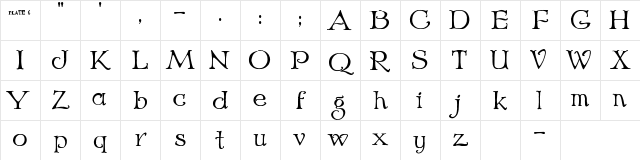
Hunt Bros 101 Plate 6 Antique Regular
Copyright: Hunt Bros 101 Alphabets. W. Ben Hunt and Ed. C. Hunt, Rather ornate with a touch of Gothic curves. 1954. 2012.
Design Context for Hunt Bros 101 Plate 6 Antique
Hunt Bros 101 Plate 6 Antique wears its vintage influences proudly, with letterforms that recall mid-century signage, classic packaging, and nostalgia-driven design.